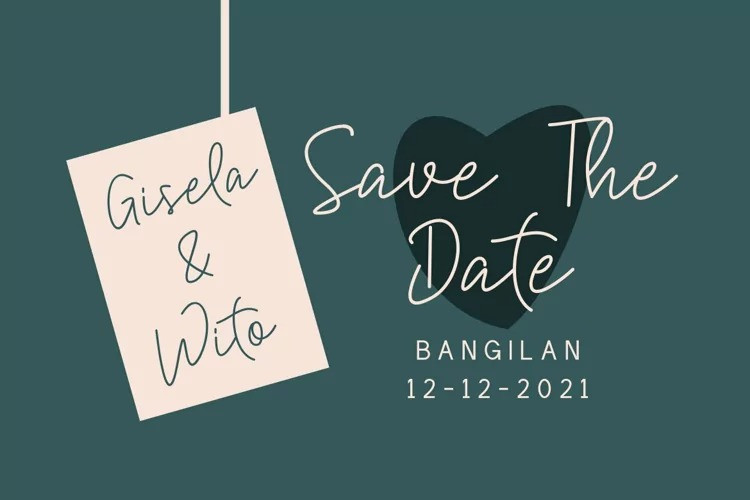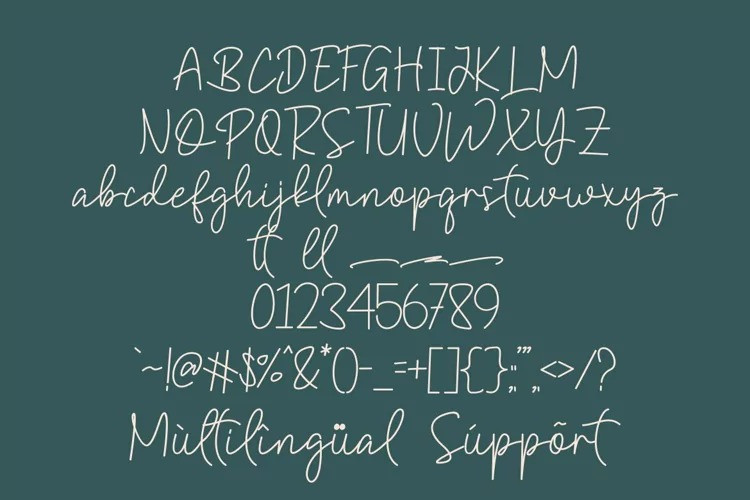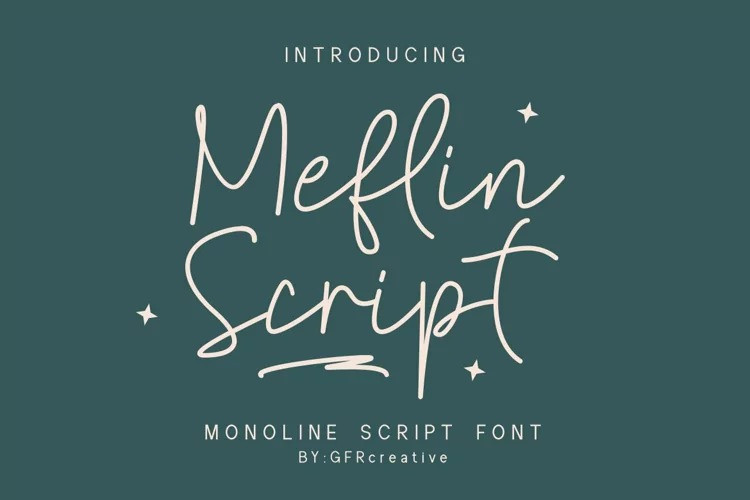
Meflin Script Typeface
Meflin Script Font
Meflin Script is a monoline script font that comes with style and character.
A great font to use in many ways for your latest project. Perfect for logos & branding, photography, invitations, watermarks, advertising, product design, stationery, wedding designs, labels, product packaging, special events, or anything else that requires handwritten content.
Also available for extensive punctuation, numbers and language support